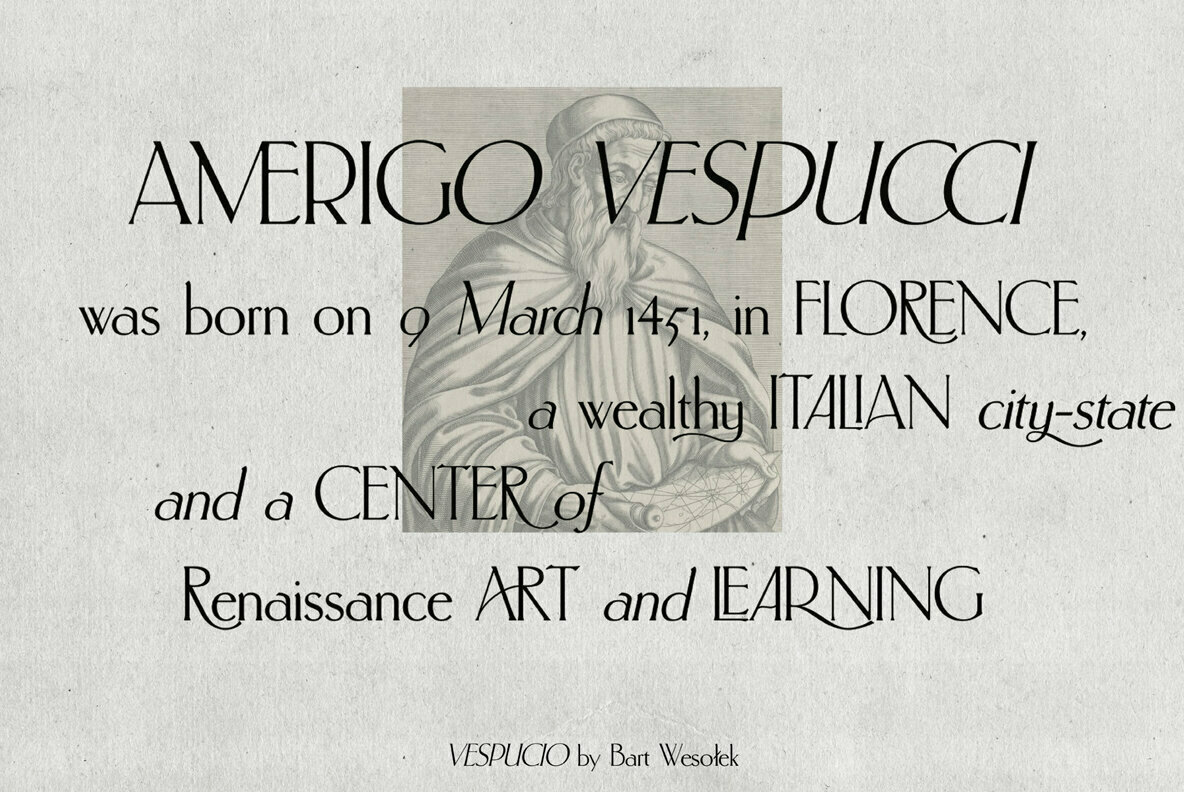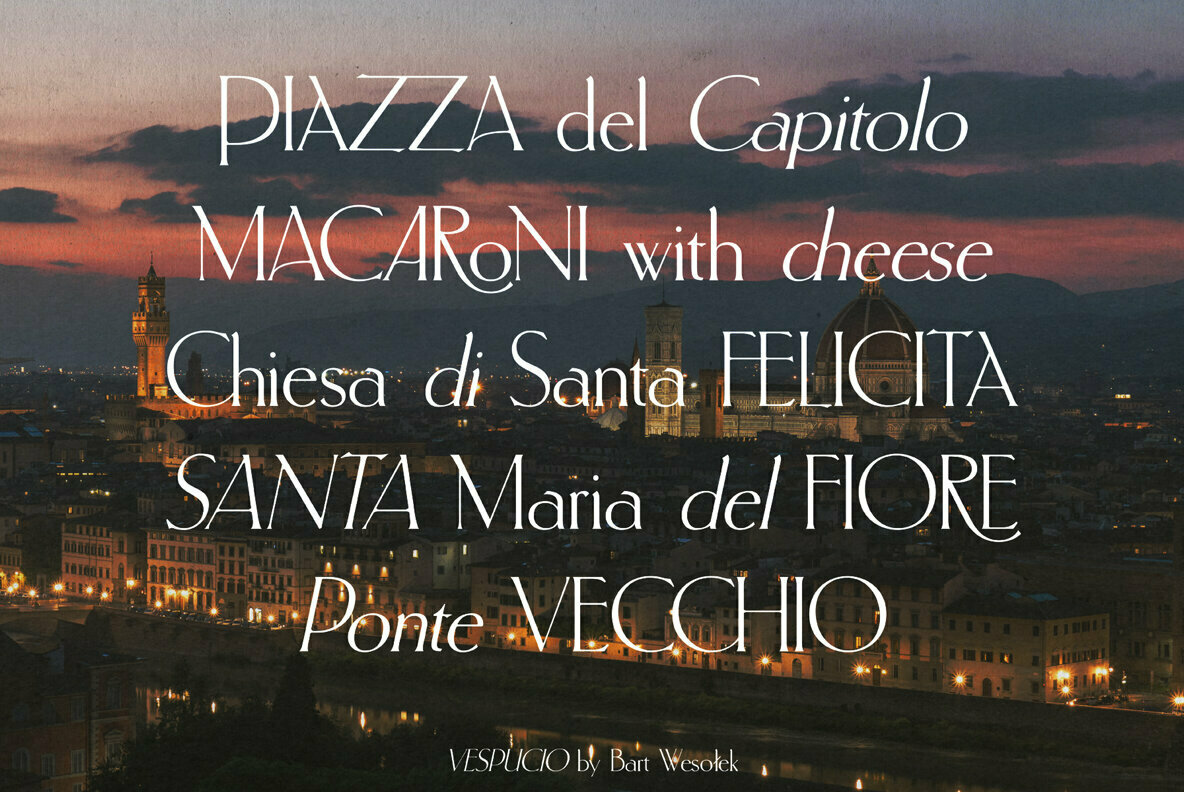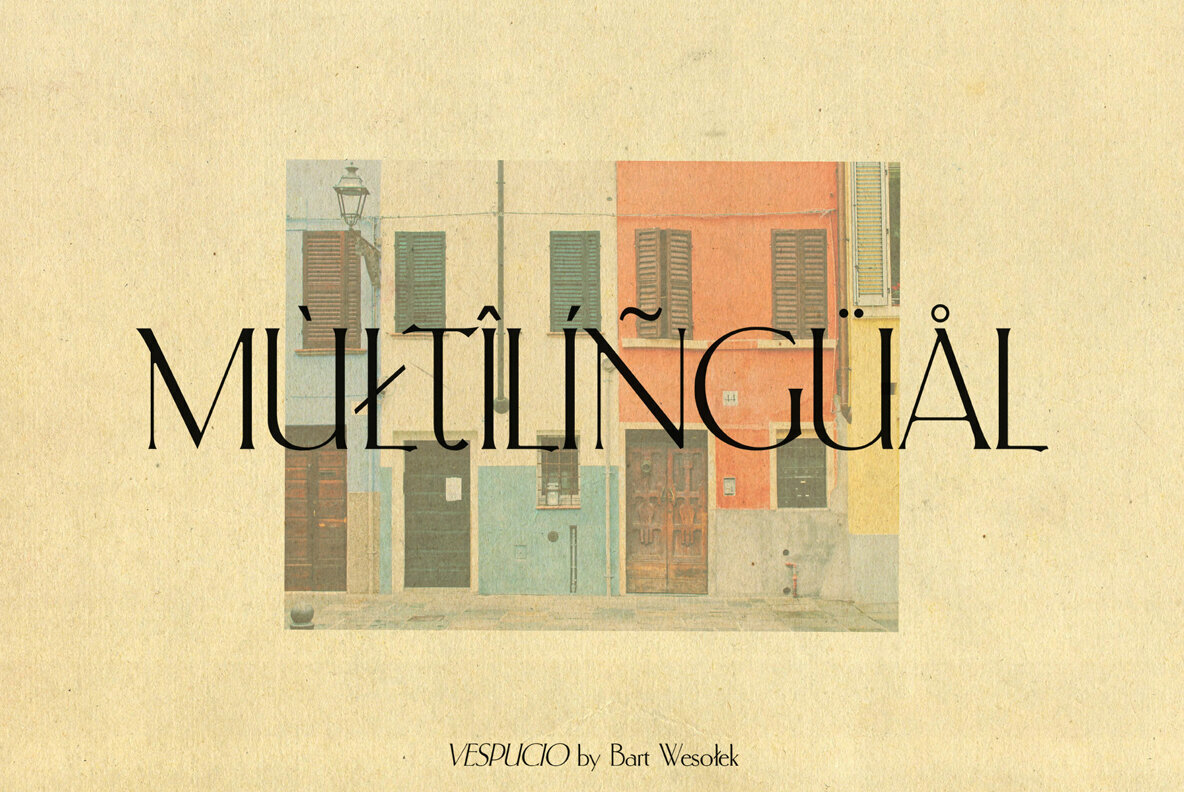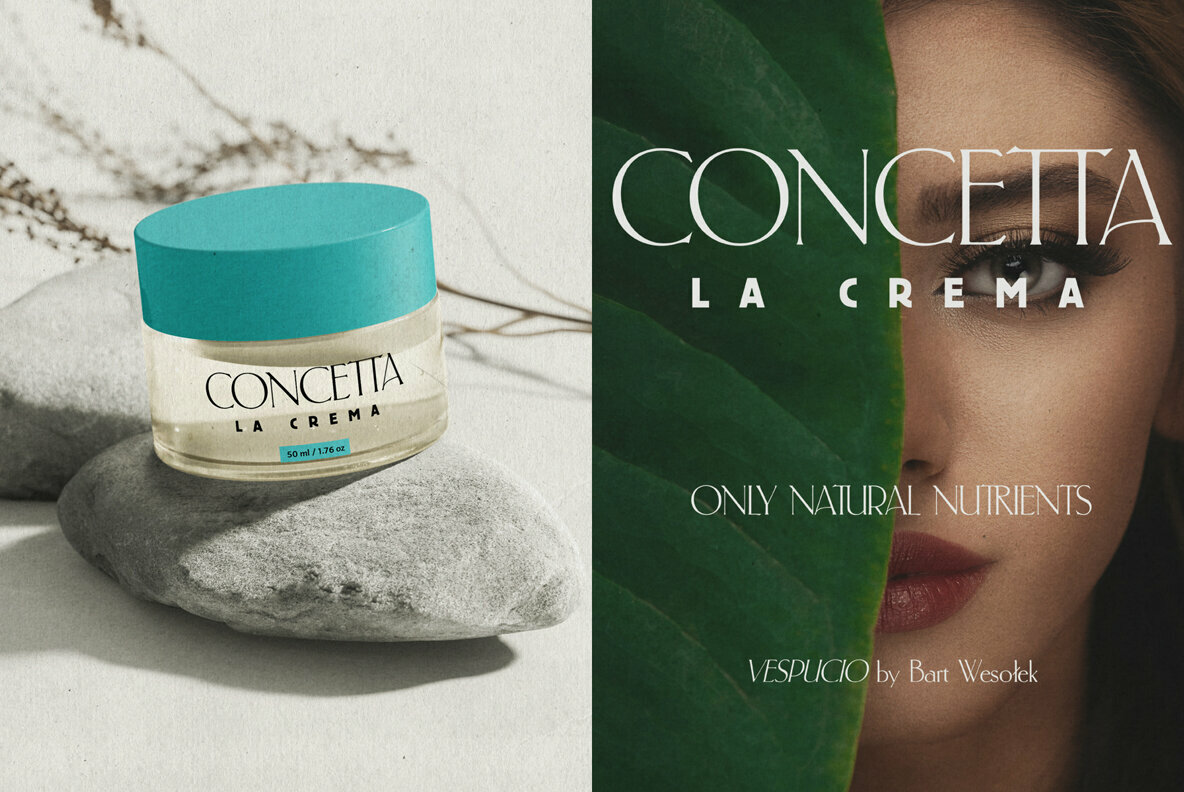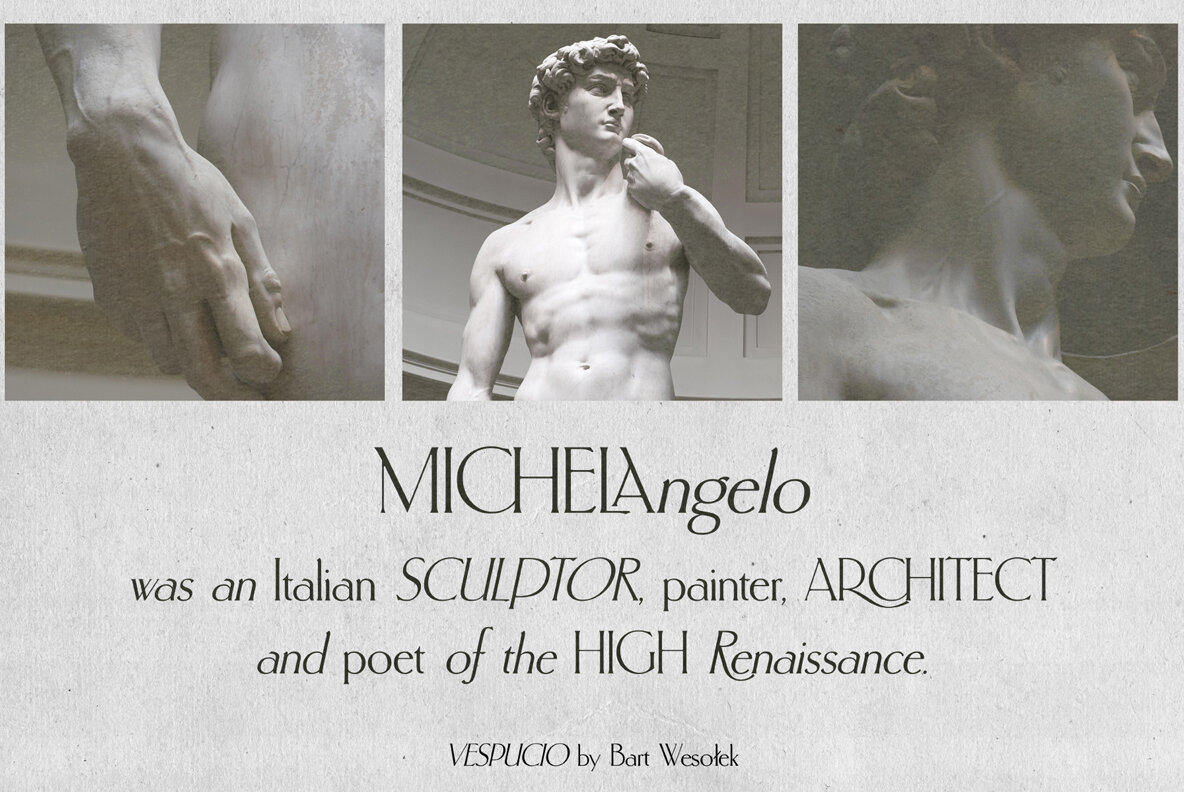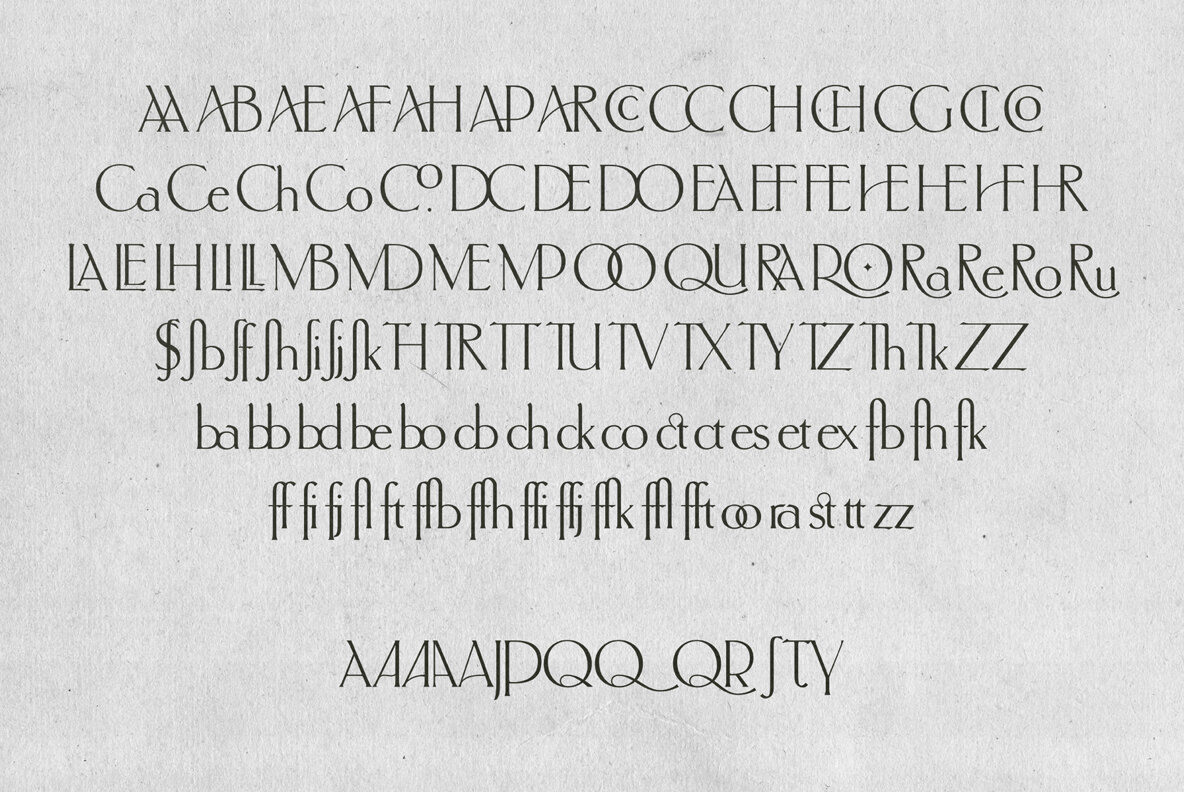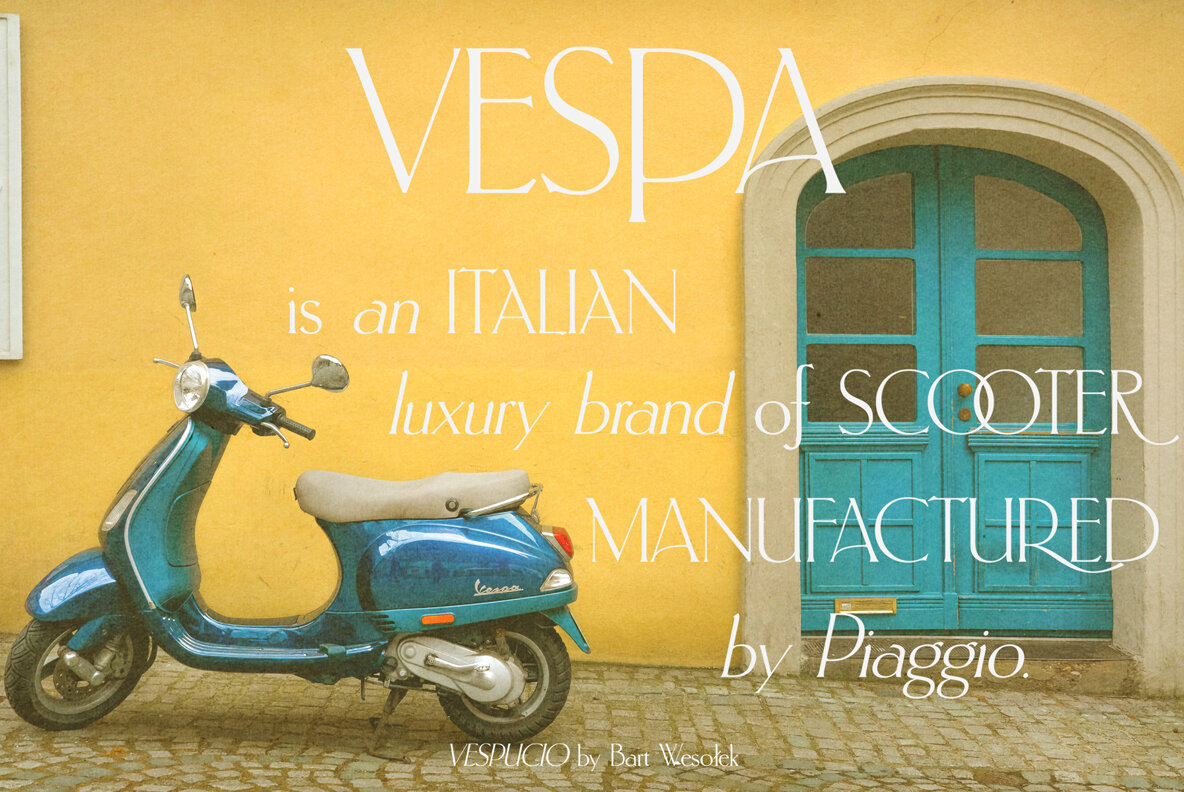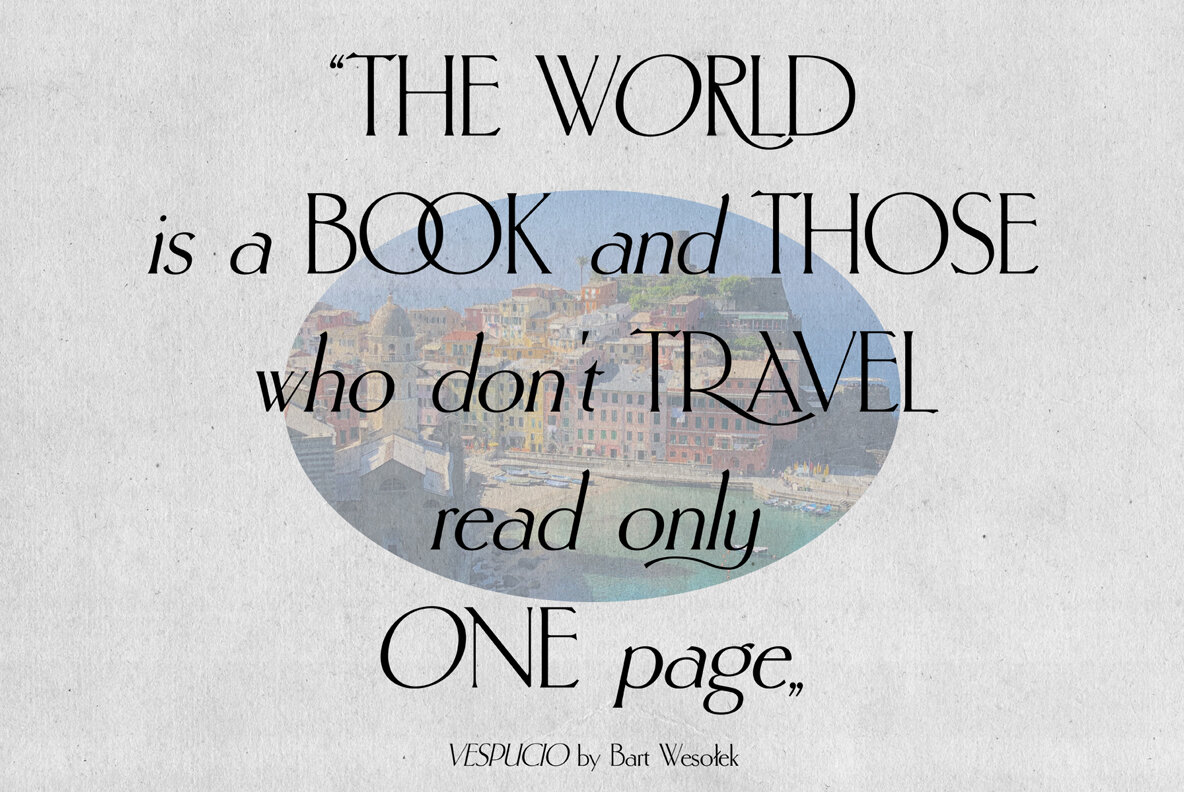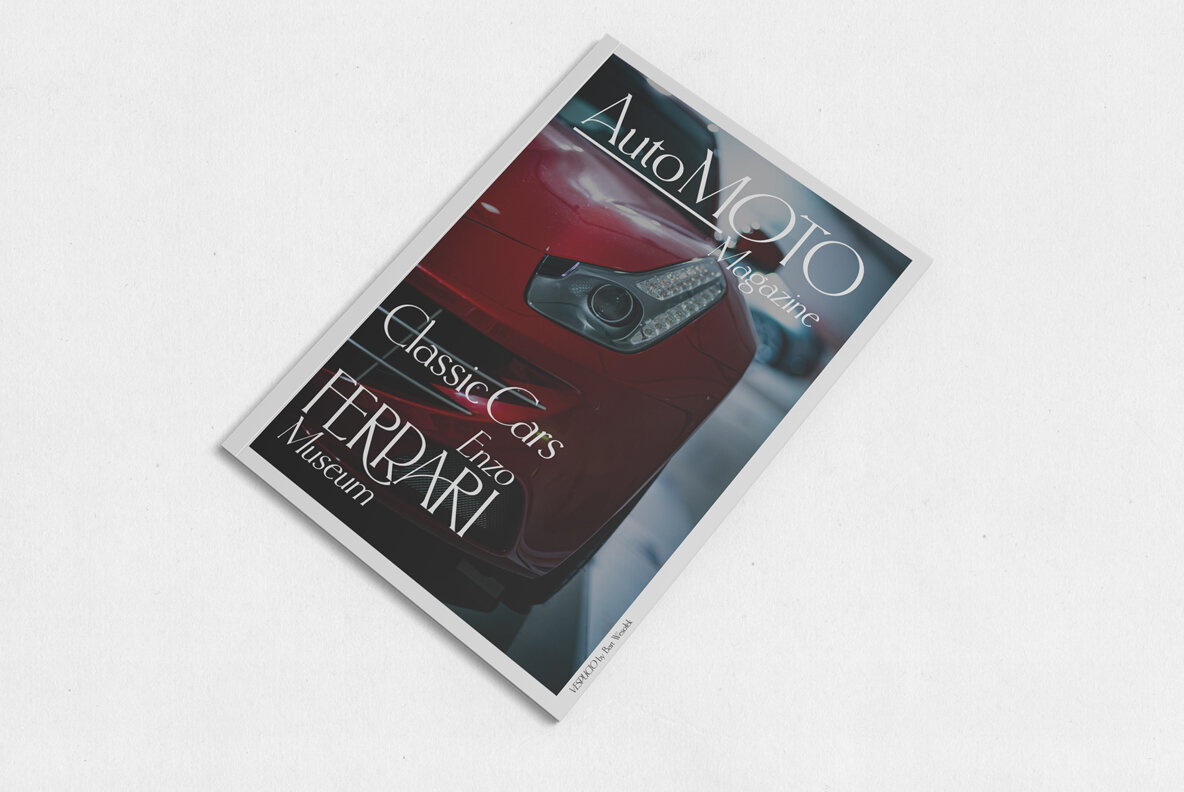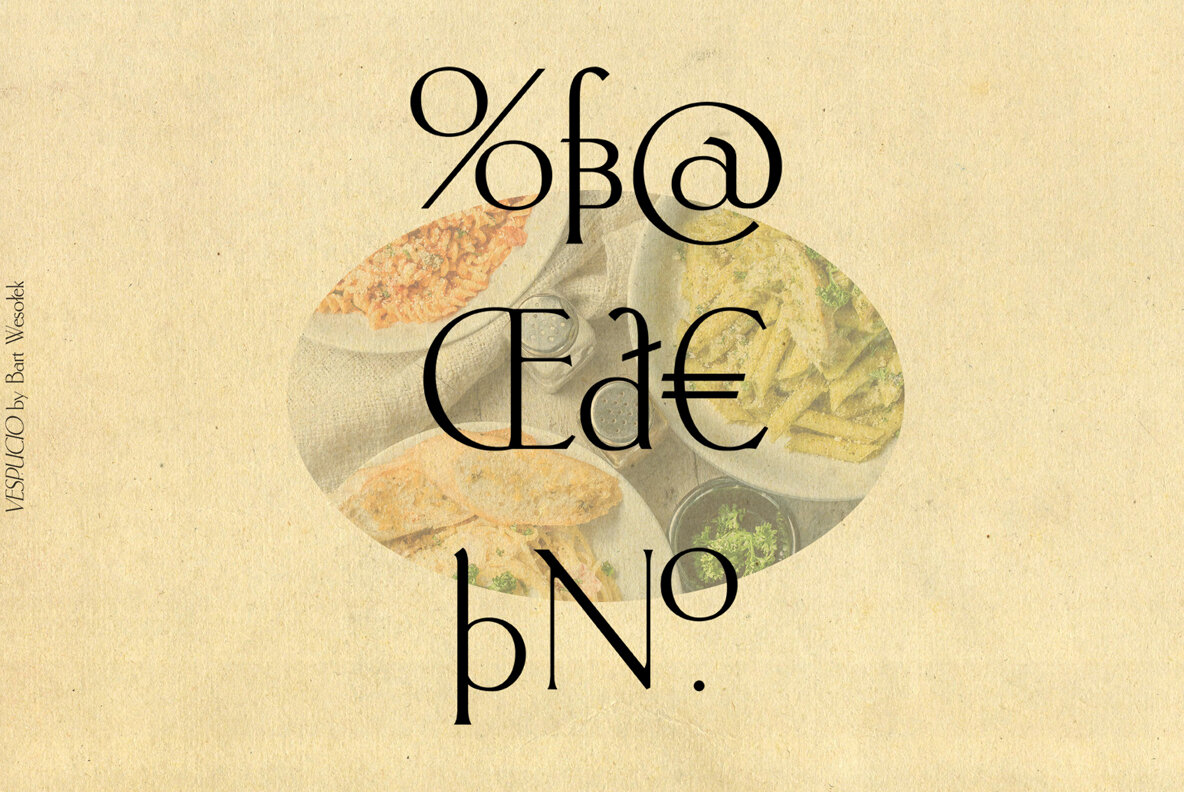
Vespucio Font
Vespucio is a modern elegant serif font. Vespucio is inspired by traditional classic serifs and modern elegant styles. Vespucio is great for text, headings, logos, brandings, socials and more. Enjoy!